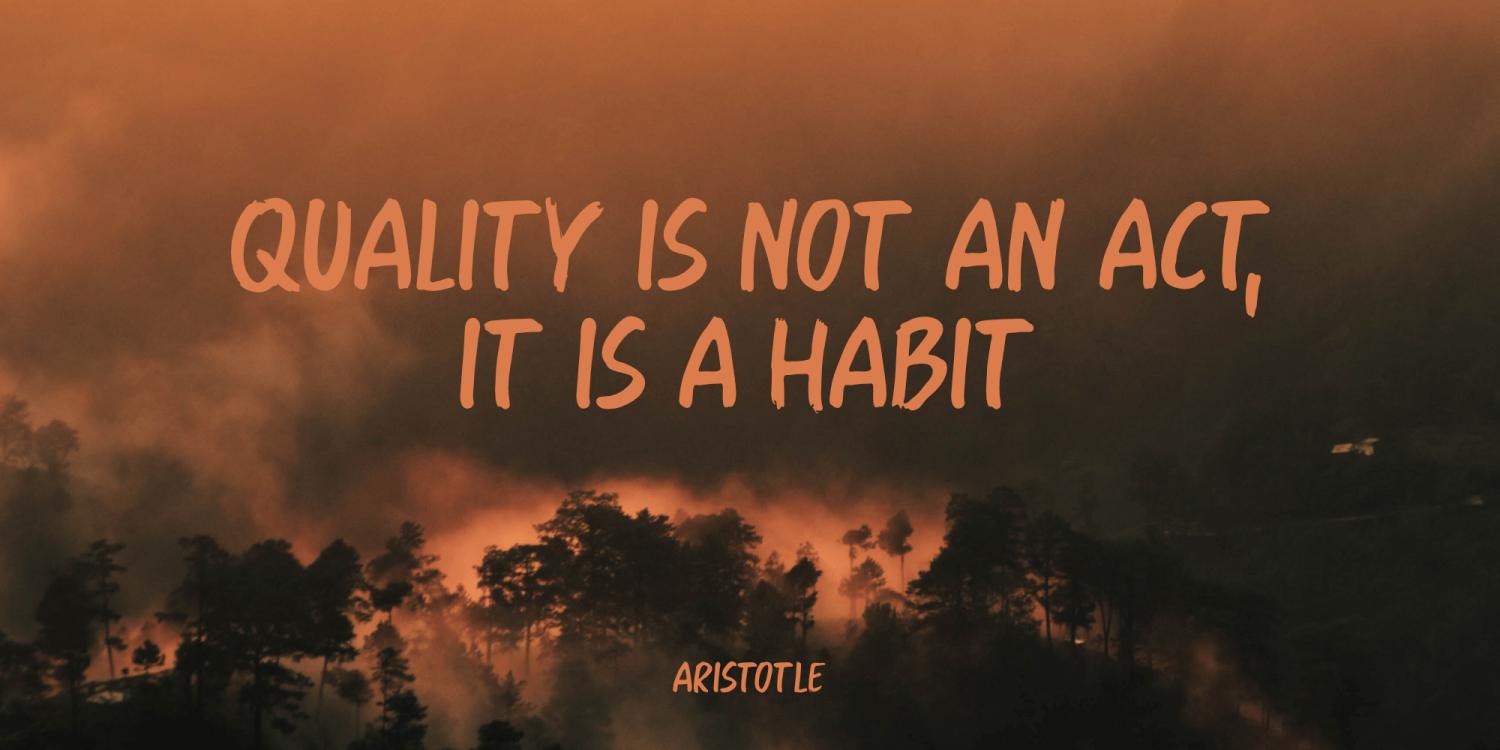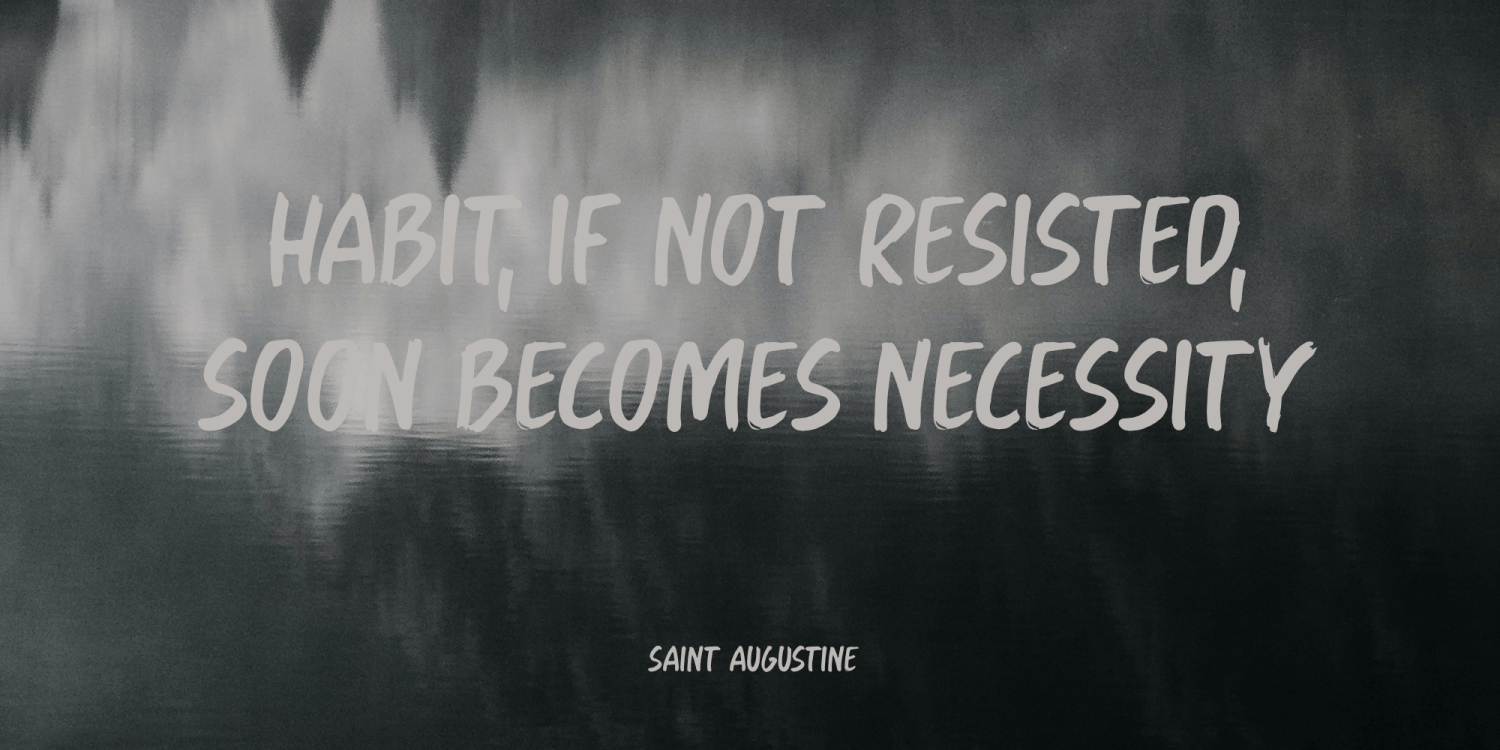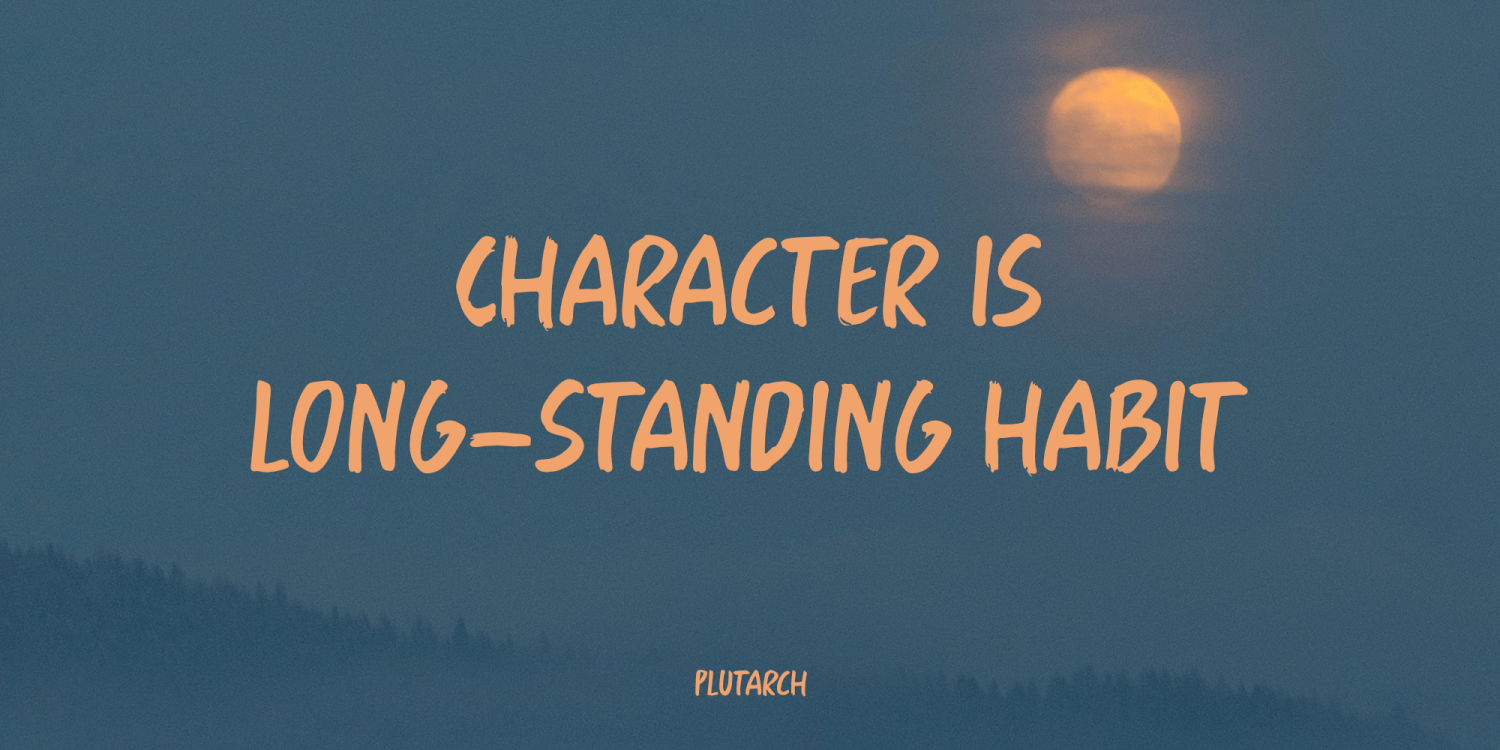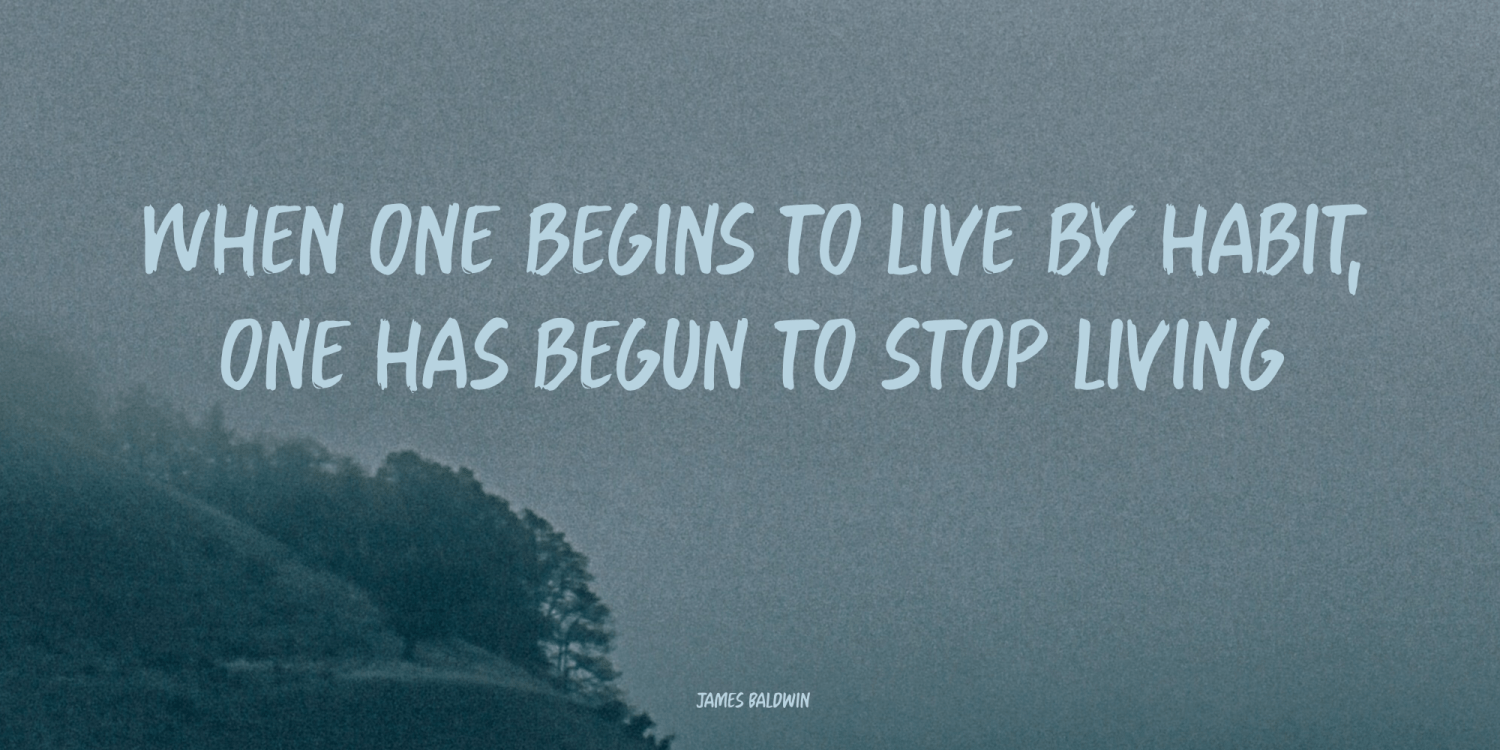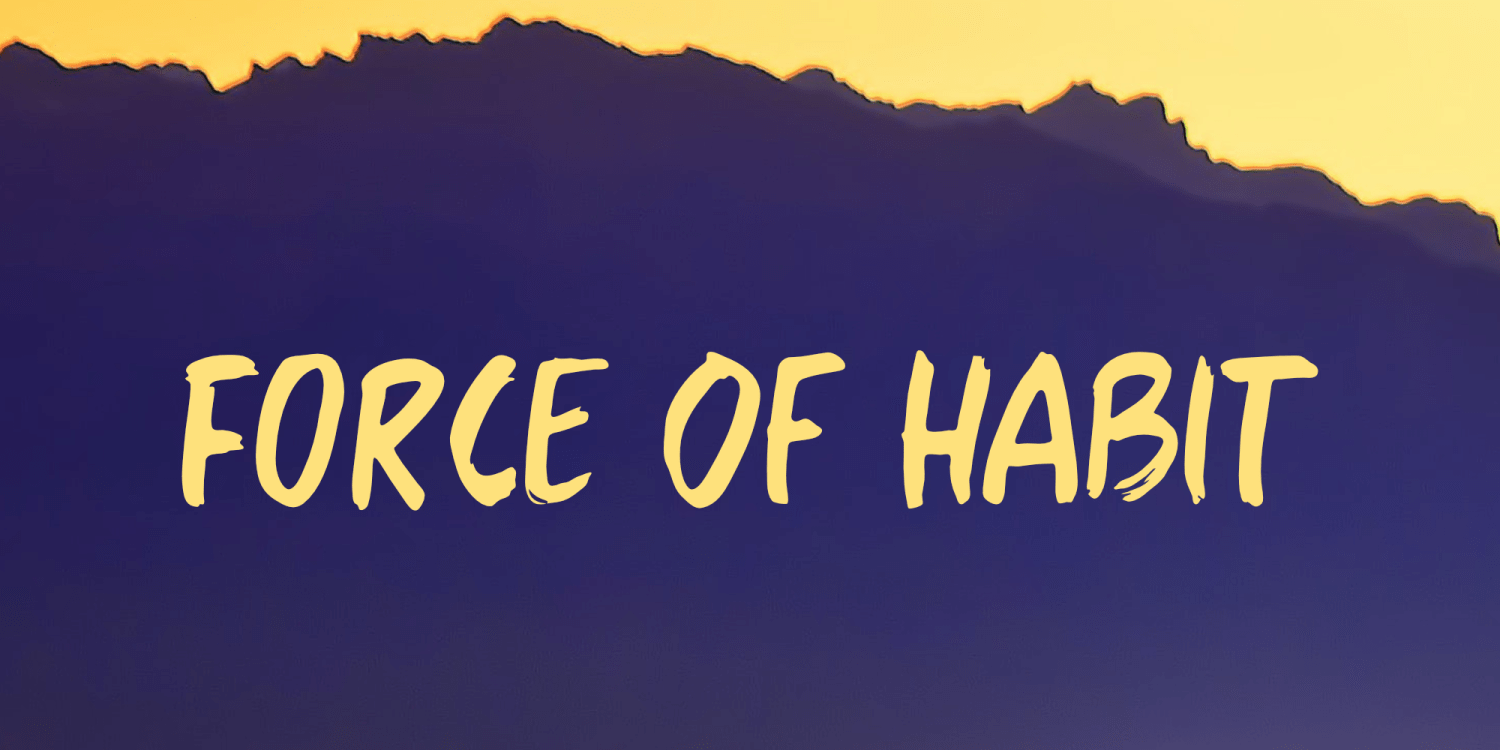
About Force Of Habit
I am not really a creature of habit, but when I start working on a new font, I make myself a cup of coffee first. I guess you can call that a habit, so I decided to name this font Force Of Habit. Force Of Habit is a nice brush font – made with a cheap…